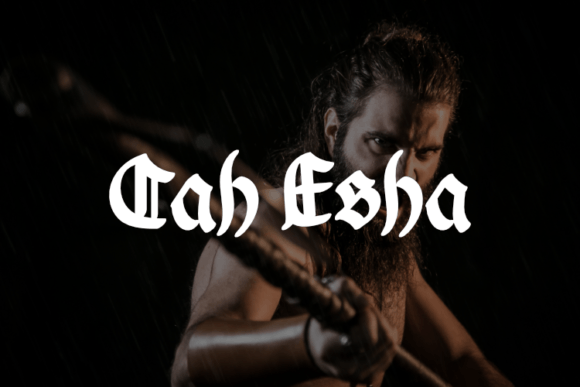
Unleash Your Creativity with the Timeless Elegance of Cah Esha Font
I’ll never forget the moment I stumbled upon the Cah Esha font while working on a fashion design project. I was struggling to find the perfect typography to complement my client’s elegant brand aesthetic. The design required a font that exuded sophistication, versatility, and a touch of whimsy. That’s when I discovered Cah Esha, and it instantly became my go-to font for a wide range of creative projects.
As a designer, I’ve had the pleasure of working with Cah Esha on various projects, and here’s what I think:
• ✨ **Timeless elegance**: Cah Esha boasts a classic, sophisticated look that never goes out of style.
• ✅ **Versatility**: This font seamlessly integrates with various design requirements, from fashion design to product design and beyond.
• 🎨 **OpenType features**: The font offers a range of OpenType features, glyphs, and stylistic alternates, giving you ample creative freedom.
While Cah Esha is an exceptional font, there are a few minor quirks to be aware of:
• 🤔 **Limited bold weights**: Some users might find the font’s bold weights a tad limited, but this hasn’t hindered my design process.
• ⚠️ **Occasional kerning issues**: As with any font, you might encounter minor kerning issues; however, these can usually be easily adjusted.
The Story Behind Cah Esha: Designer Inspiration
Cah Esha was crafted with the intention of creating a timeless, elegant font that would cater to a wide range of design needs. The designer aimed to create a typeface that exudes sophistication, versatility, and creativity. Inspired by classic typography, Cah Esha combines traditional elements with modern flair, making it an ideal choice for designers seeking a font that can adapt to various design requirements.
What is Cah Esha font best suited for? Cah Esha is perfect for fashion design, product design, branding, and any project requiring a touch of elegance and sophistication.
Does Cah Esha support OpenType features? Yes, Cah Esha offers a range of OpenType features, glyphs, and stylistic alternates, giving you ample creative freedom.